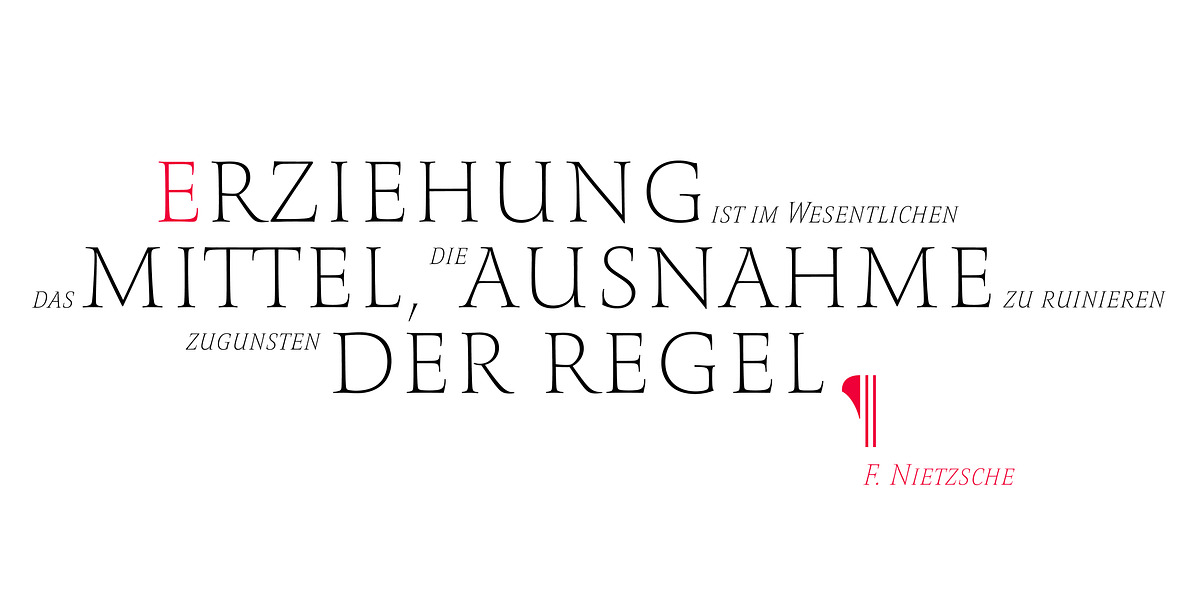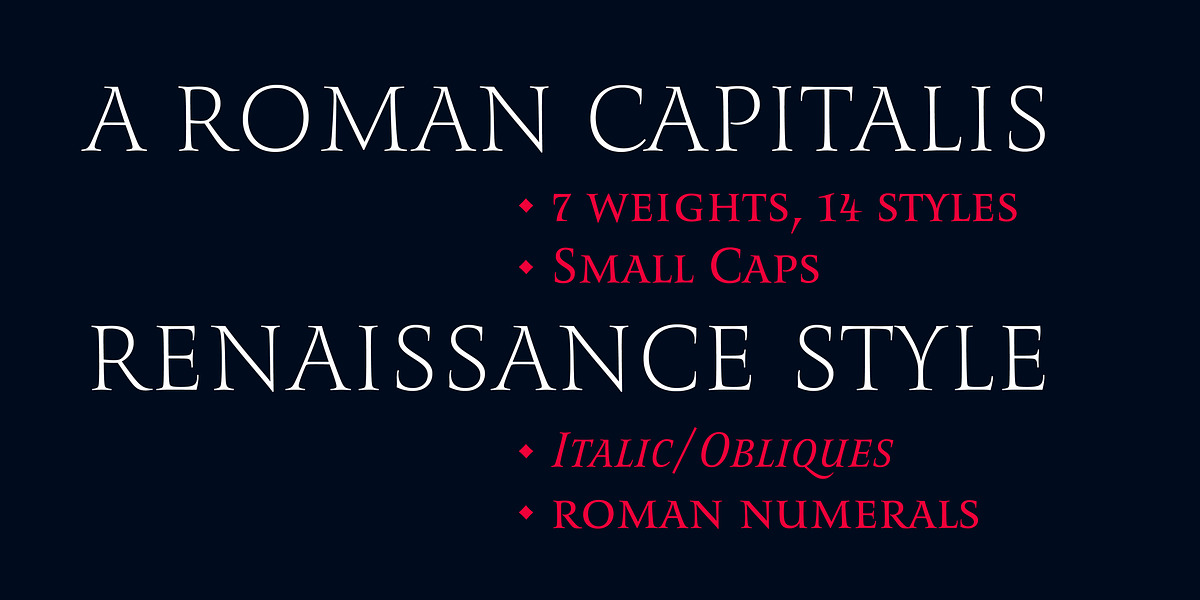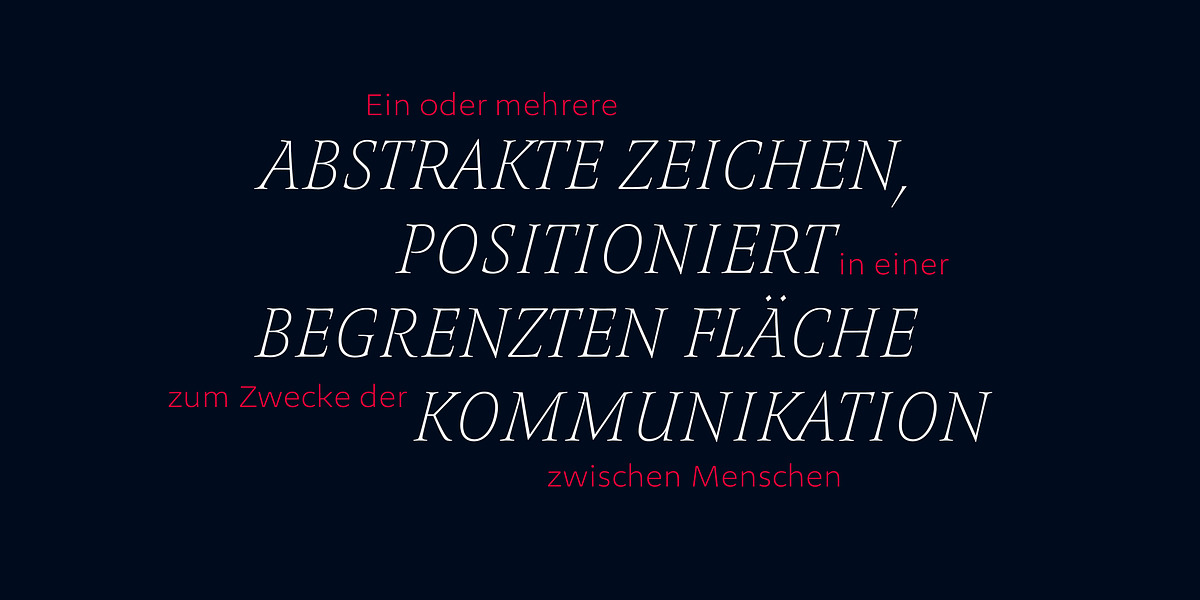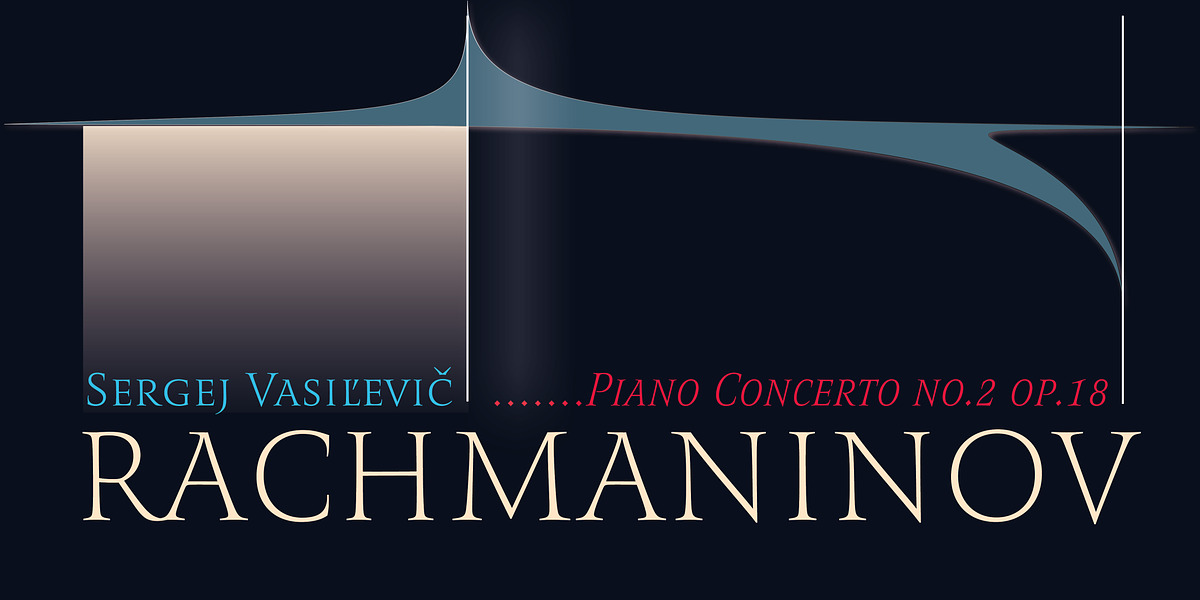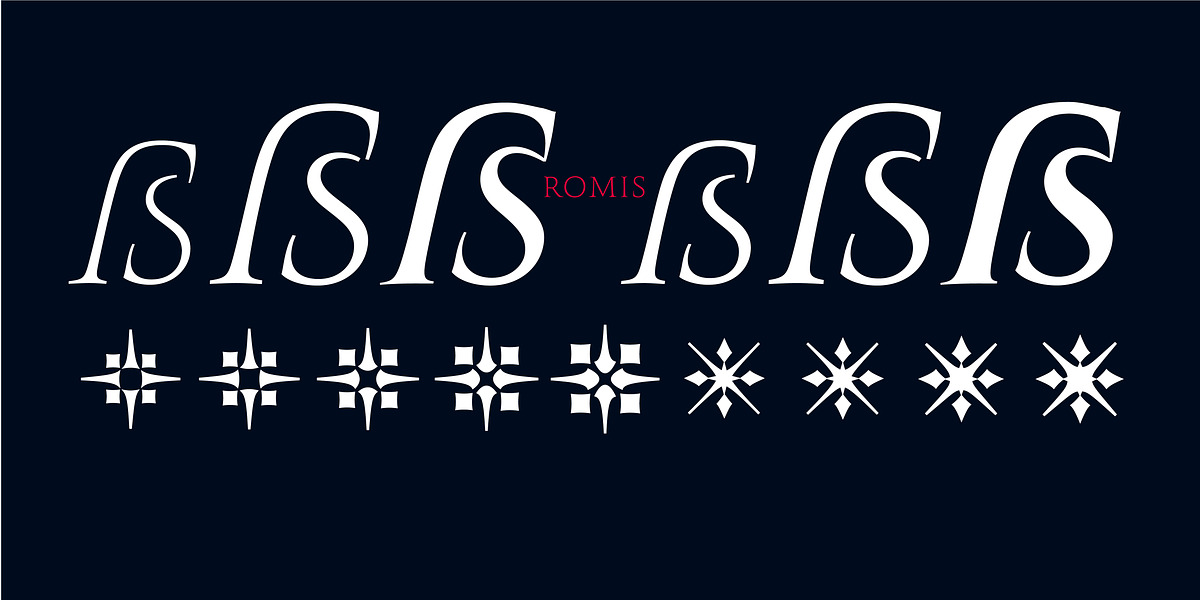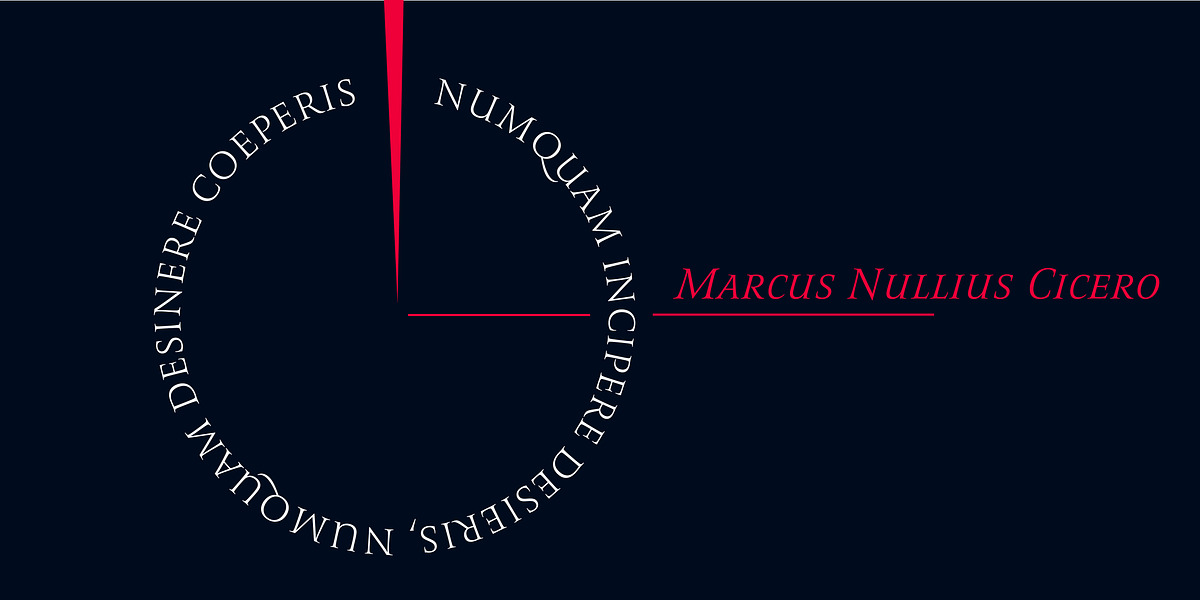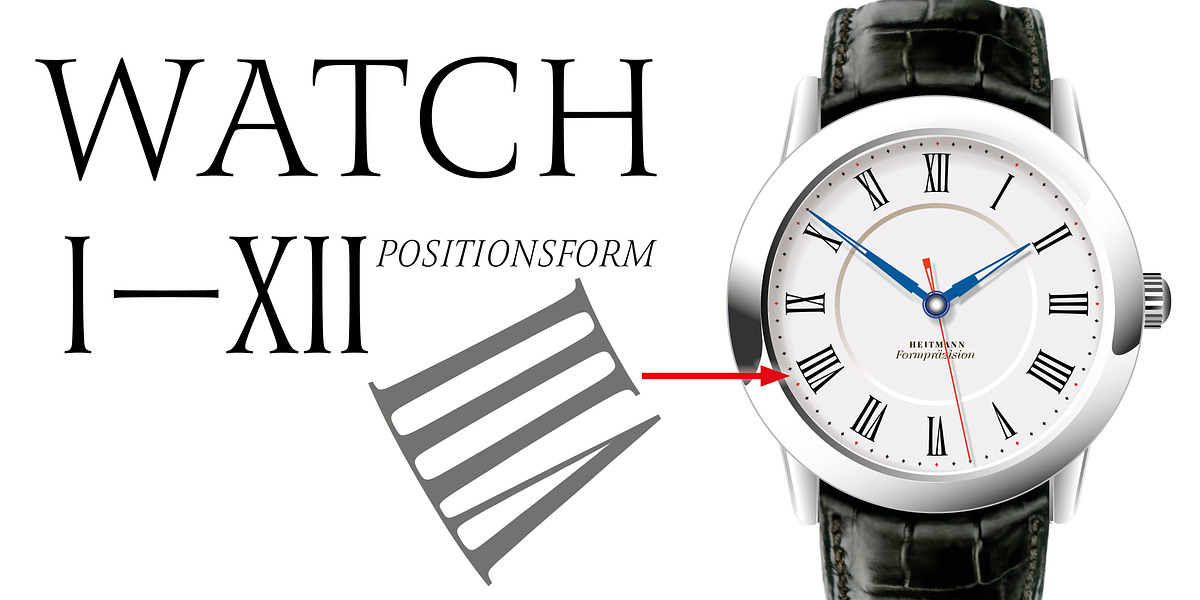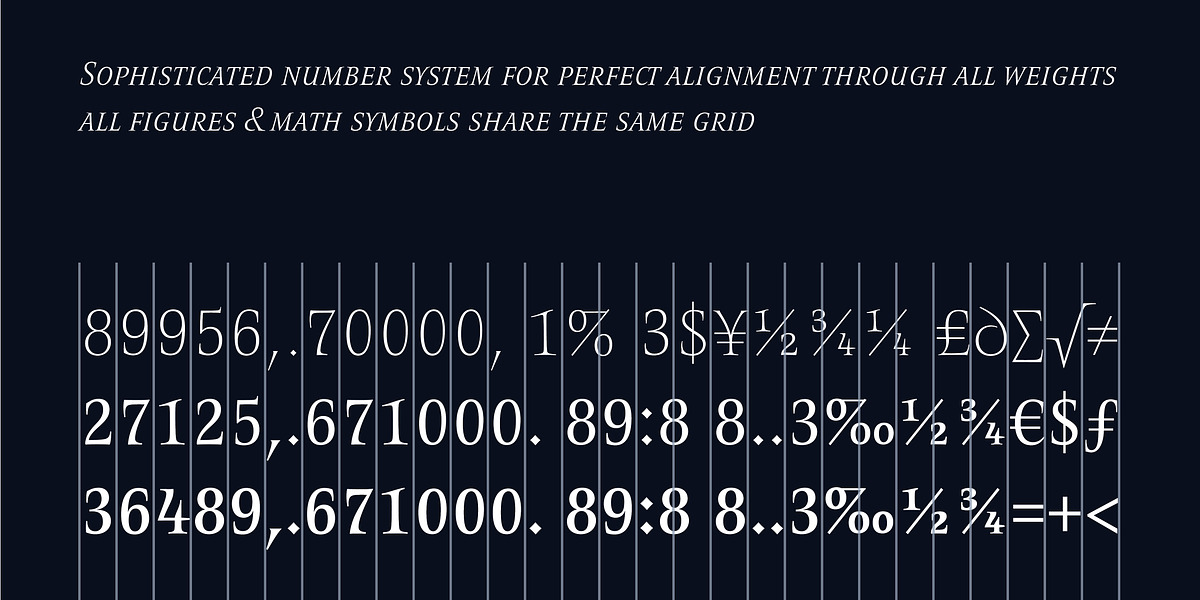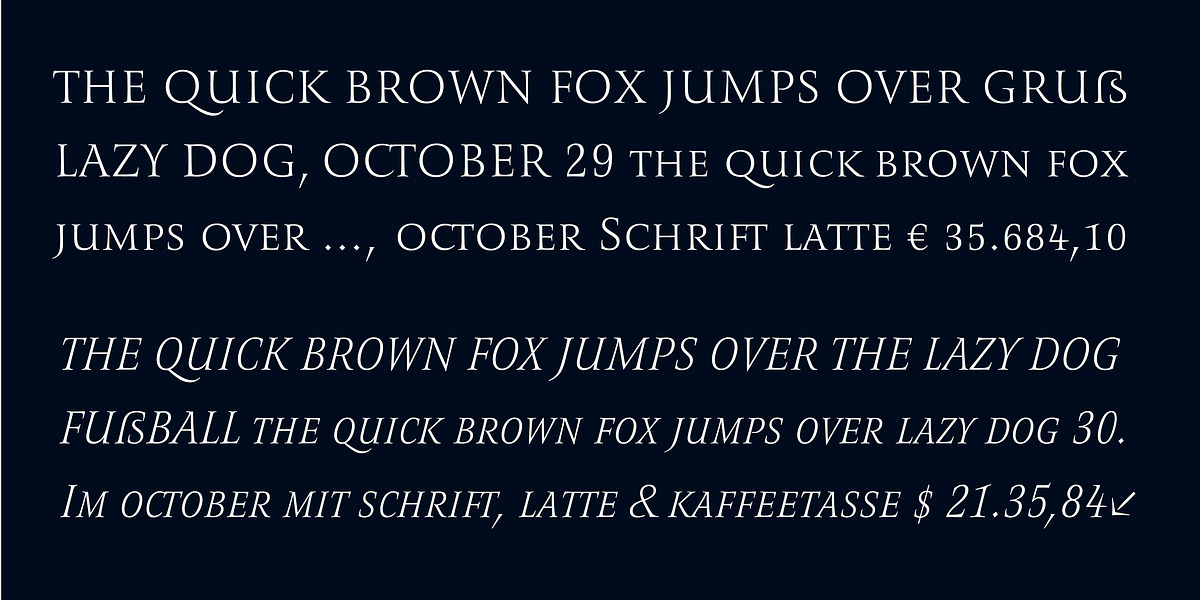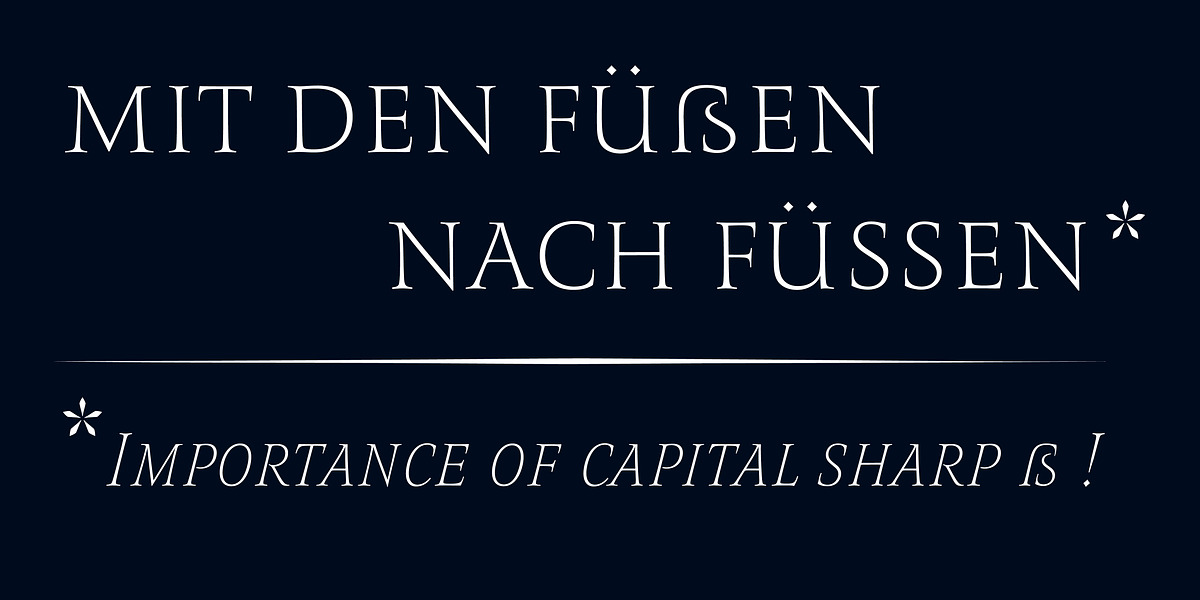
Romis
Romis is a serif typeface inspired by the humanist style of the Renaissance. It draws inspiration from the Capitalis Monumentalis, featuring individually shaped serifs and a lack of geometric lines. Notably, Romis uses true small caps instead of a traditional lowercase alphabet. The font family comes in six weights, further expanding its versatility with a narrow oblique for each weight.